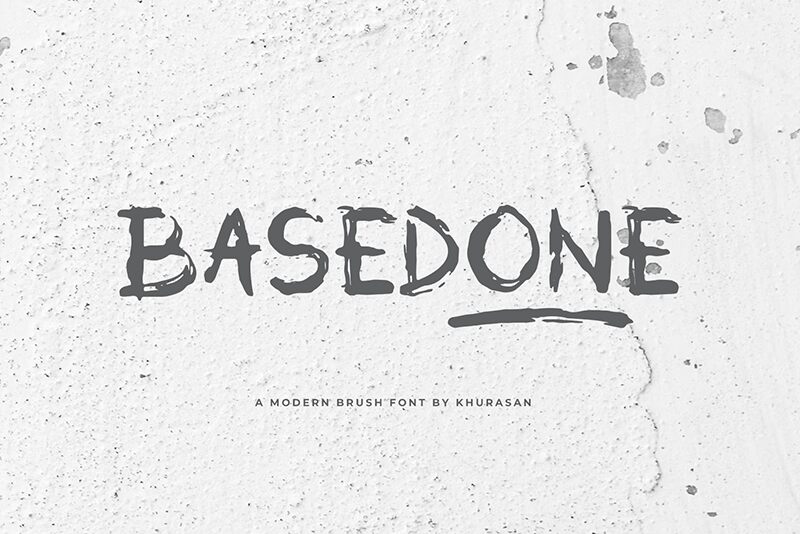
Basedone
Basedone font by Khurasan is a free brush font featuring distressed effects and a grunge look. It was created for the purpose of supplying amateur and experienced designers with the tool needed to present artistic touches within their work. Each letter has unique textures, finishing stunningly with different strokes.
The expressive visual impact of this typeface allows it to be used in contemporary settings in which an artistic display is required. This can be modern posters, unusual advertising presentations, heading texts for magazines or blogs, video games interfaces displaying scores and names, sports event flyers, etc.